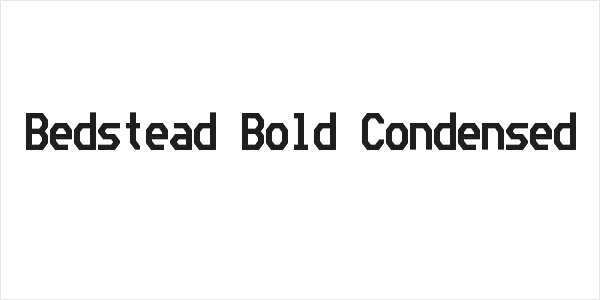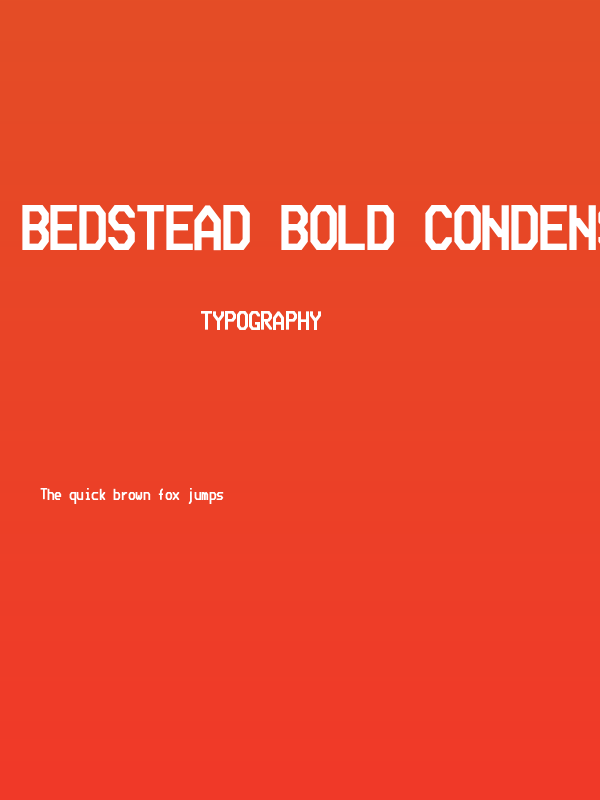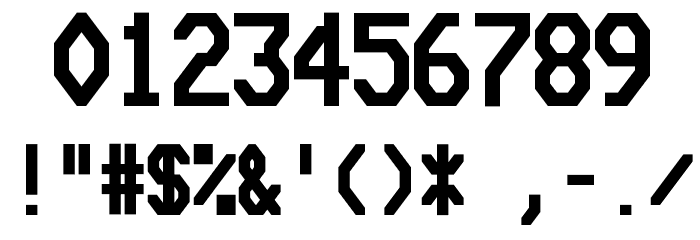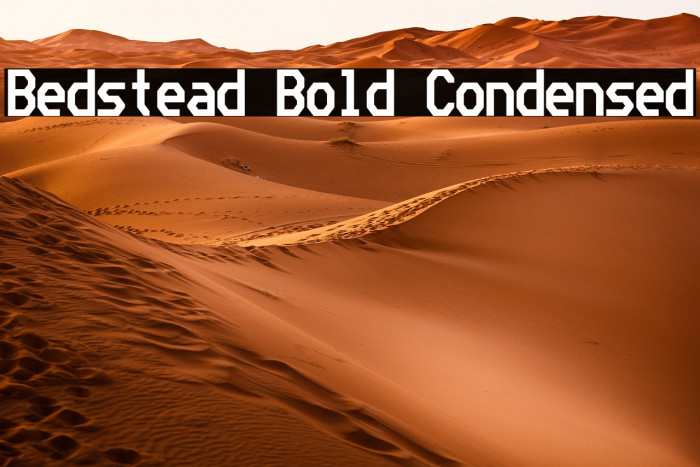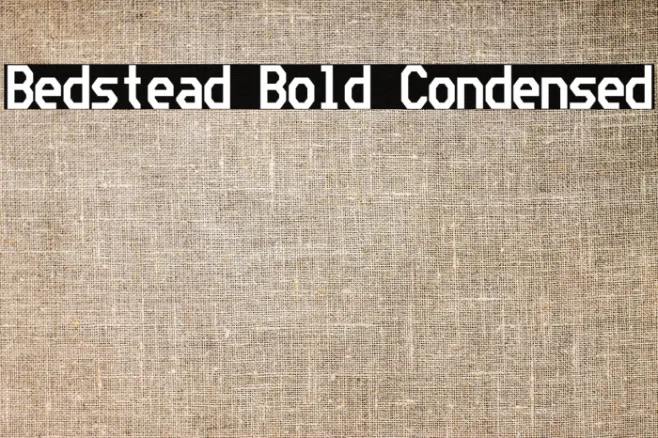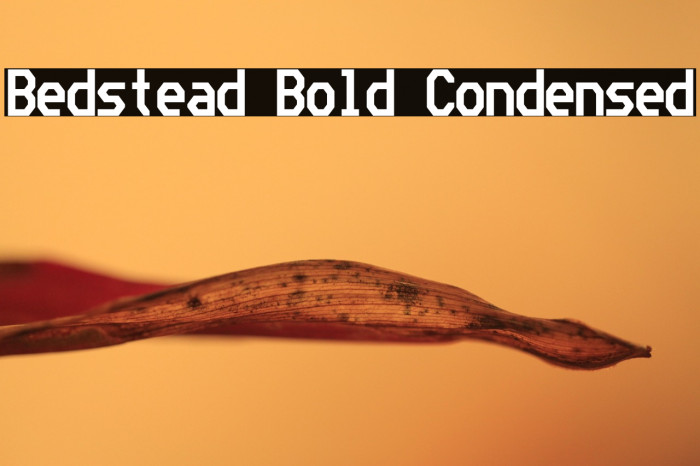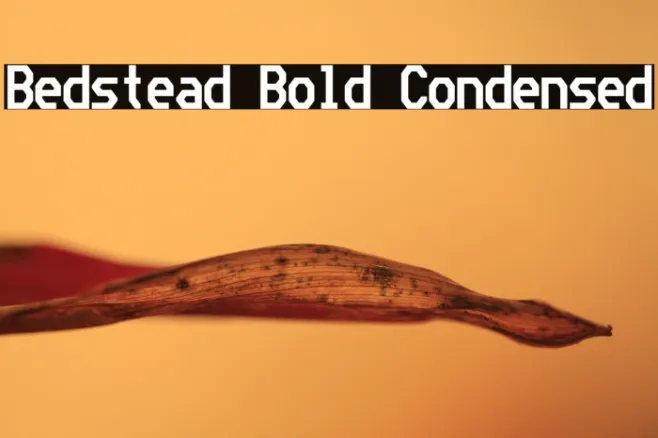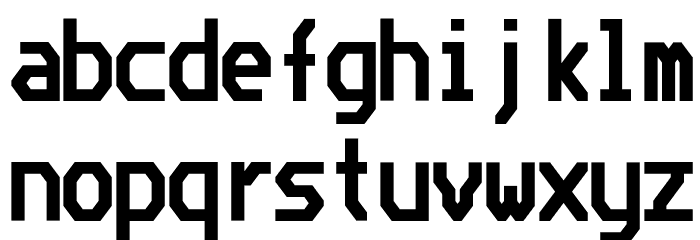
Bedstead Bold Condensed Font
Bedstead Bold Condensed Description
This font features a bold and condensed style with a geometric and angular design. The characters are constructed with straight lines and sharp edges, giving it a modern and industrial feel. The uppercase and lowercase letters maintain a consistent height, contributing to a uniform appearance. The numerals and special characters follow the same design principles, ensuring a cohesive look across all glyphs. This font's boldness and condensed nature make it highly legible, even at smaller sizes, while its unique style adds a distinctive touch to any text.
| Proposed Projects | Ideal for branding, posters, headlines, and any project requiring a modern, industrial aesthetic. |